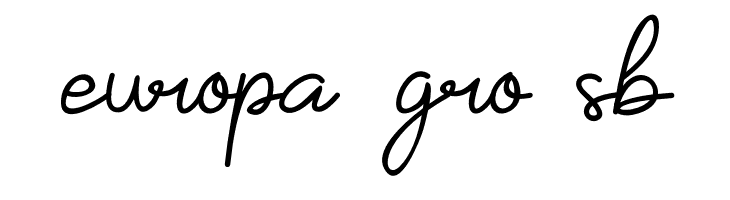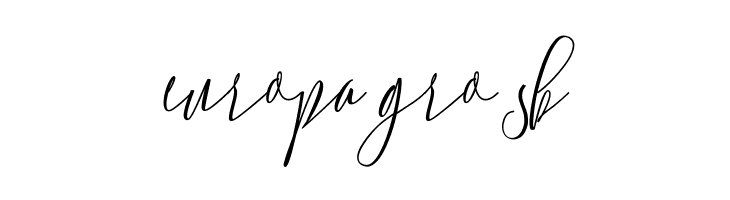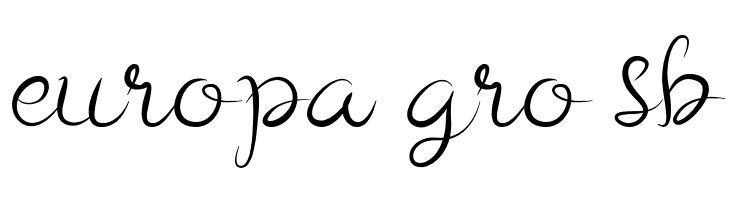
( PutraCetol Studio - Putra Novembria Candra Kusuma - creativemarket.com/putracetol )
A tall, narrow font with a rough, vintage texture and a handcrafted feel.
( PutraCetol Studio - Putra Novembria Candra Kusuma - creativemarket.com/putracetol )
A bold, textured font with a tribal, hand-carved aesthetic.
( PutraCetol Studio - Putra Novembria Candra Kusuma - creativemarket.com/putracetol )
A flowing, cursive script with a handwritten aesthetic.
( Rahmat Hidayat )
An elegant and flowing script font with graceful curves and loops.
( Rahmat Hidayat )
An elegant, cursive font with a graceful, handwritten style.
( Rahmat Hidayat )
A graceful and elegant script font with fluid, sweeping curves.
( Rifan Asri )
An elegant, flowing script font with thin, delicate strokes and graceful curves.
( Rifan Asri )
A delicate and elegant script font with flowing, graceful strokes.
( Rifan Asri )
An elegant and flowing script font with graceful curves and delicate strokes.
( Rizalul Ammar )
An elegant script font with graceful curves and ornate flourishes.